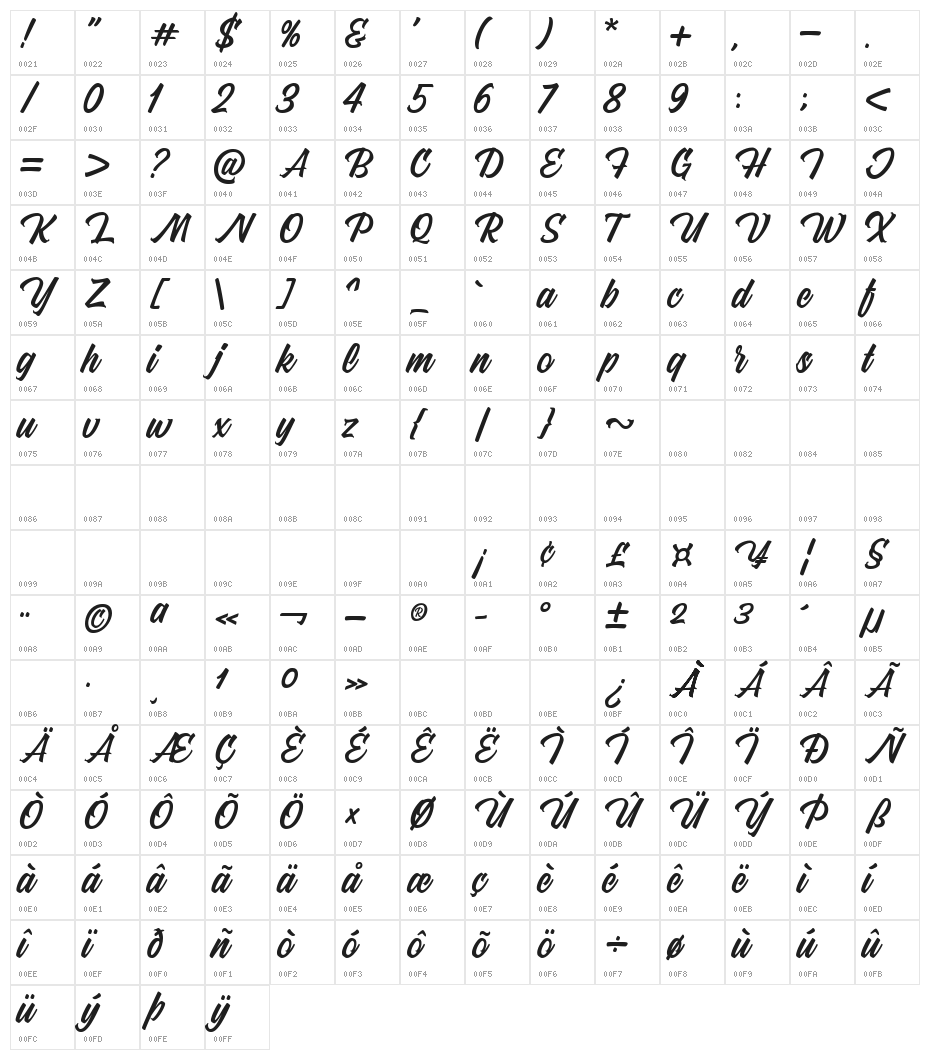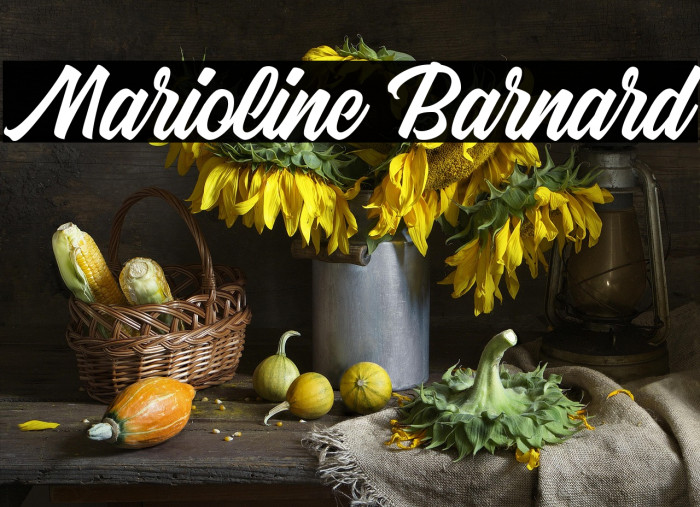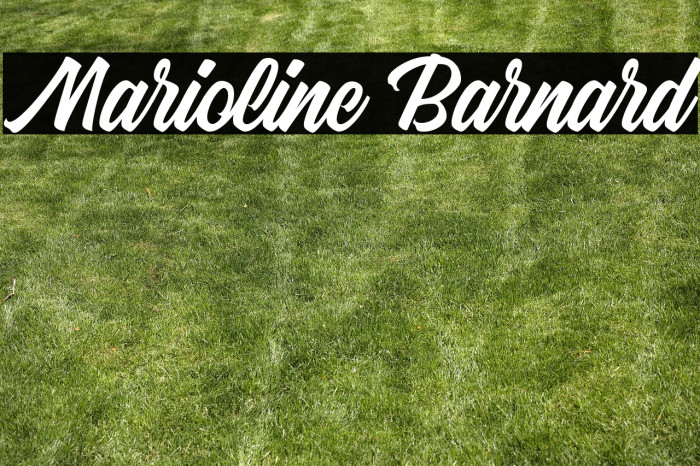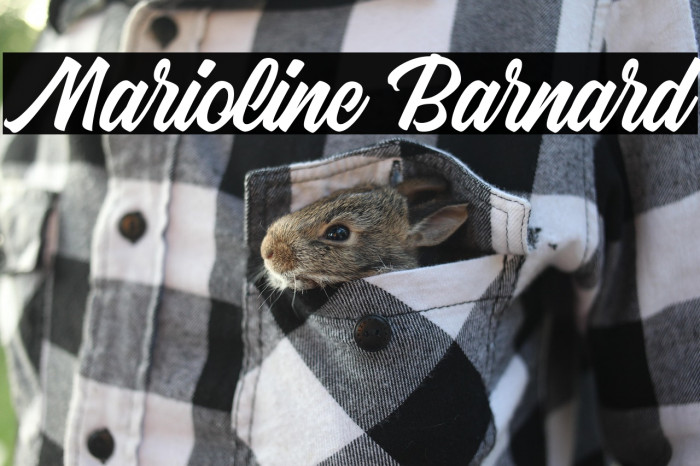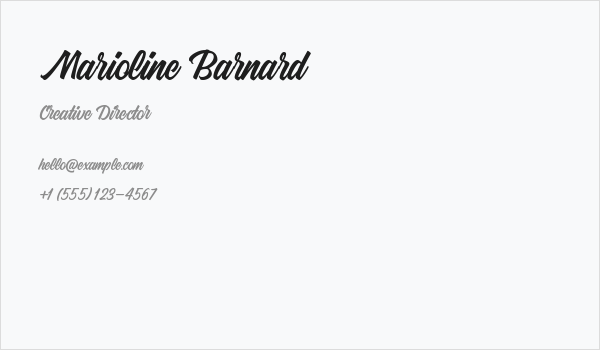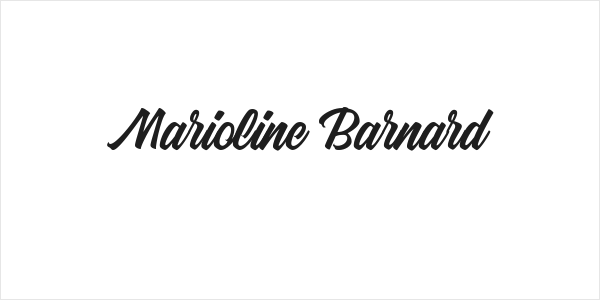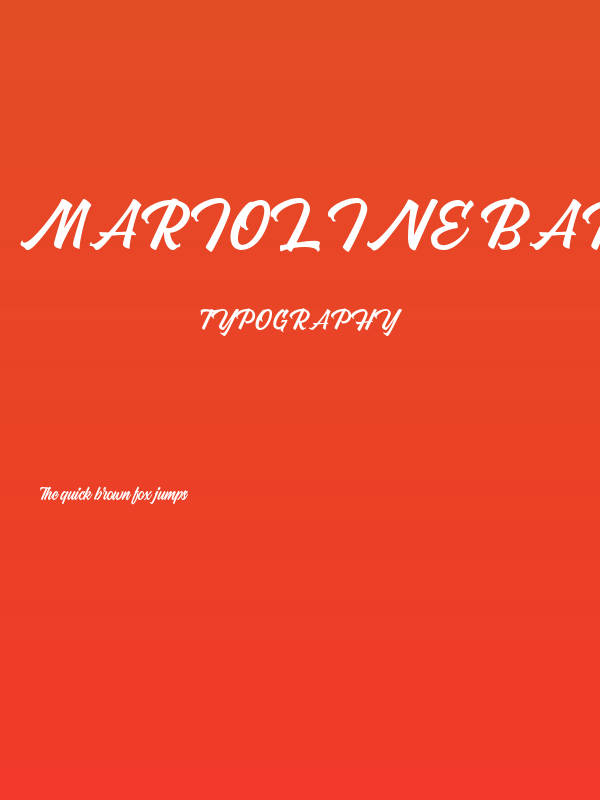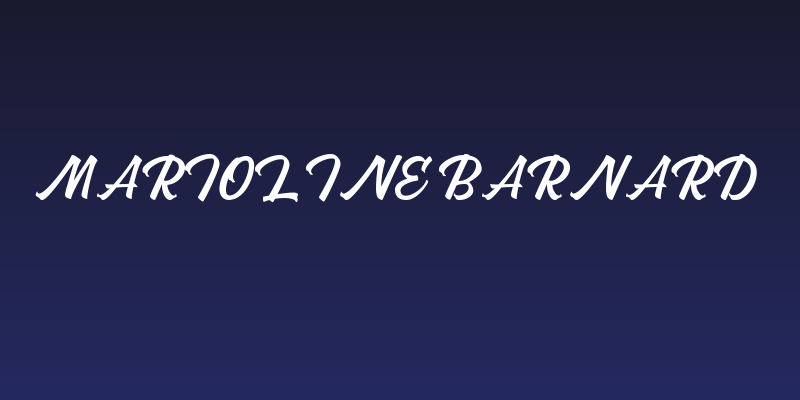
Marioline Barnard Font
Marioline Barnard Description
This font features a dynamic and flowing script style, characterized by its elegant and cursive letterforms. The uppercase letters exhibit a graceful slant, with smooth curves and a consistent stroke width that adds to its sophisticated appearance. The lowercase letters maintain a similar fluidity, with some characters connecting seamlessly to create a handwritten effect. The numerals are bold and clear, ensuring readability while maintaining the overall aesthetic. Special characters are well-integrated, complementing the font's artistic style. This font's design exudes a sense of elegance and creativity, making it suitable for various applications where a personal touch is desired.